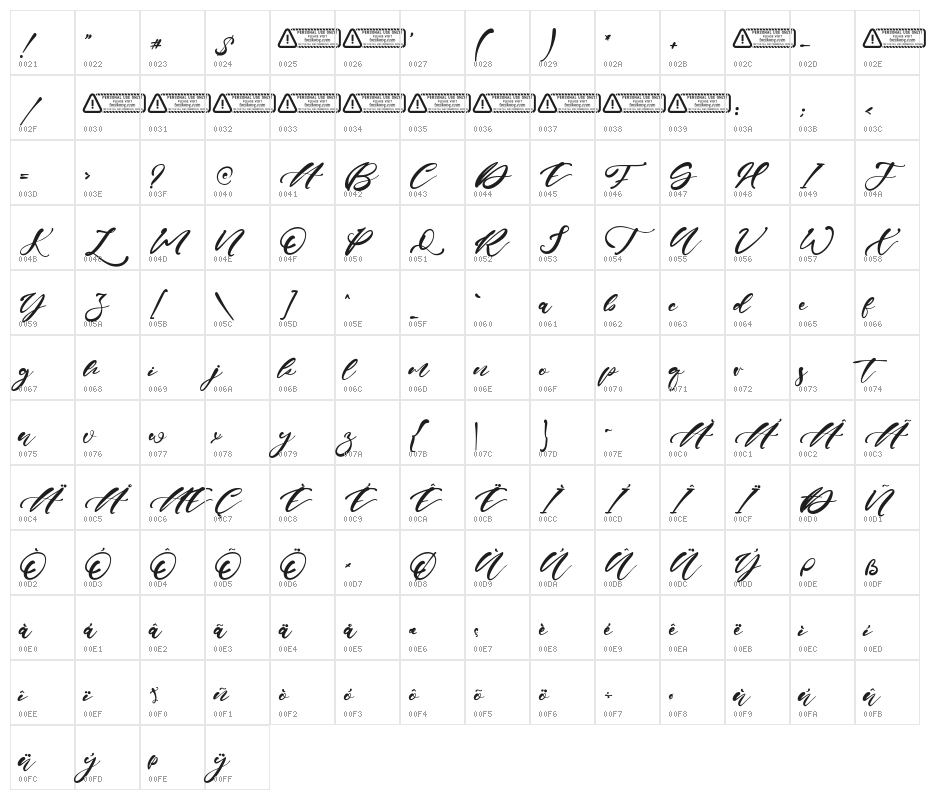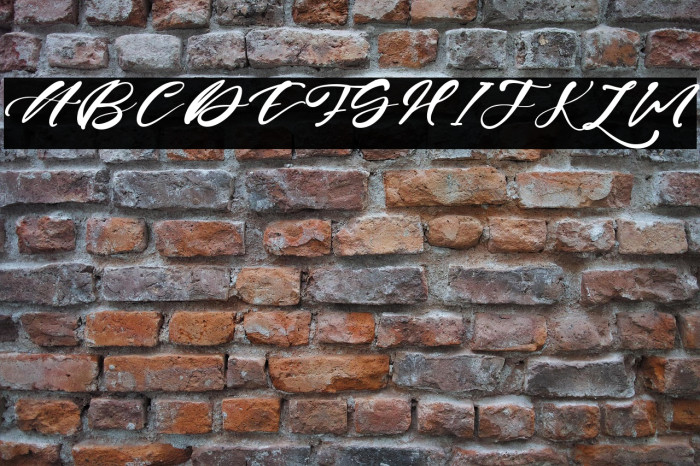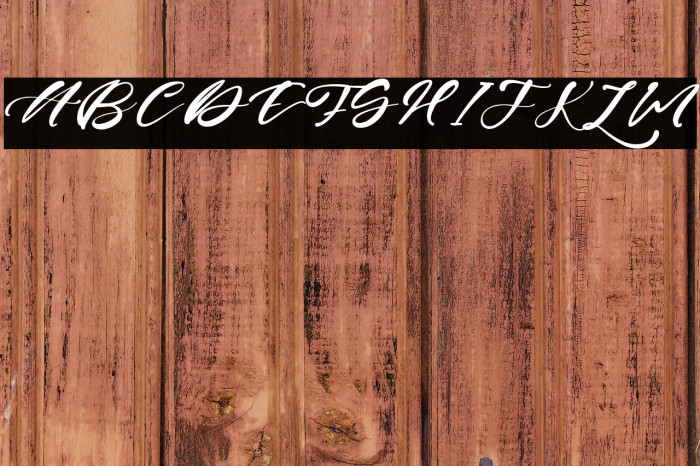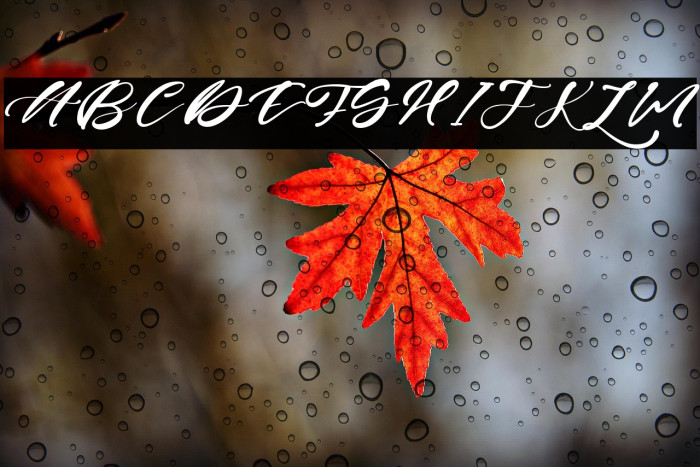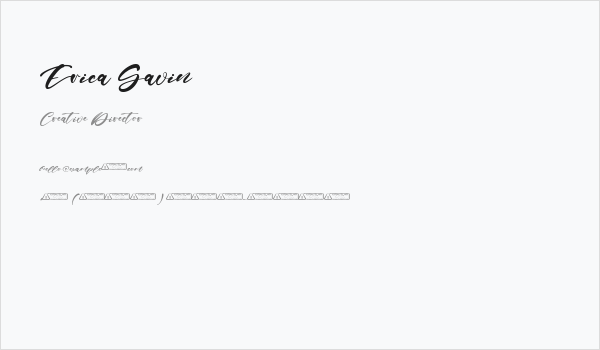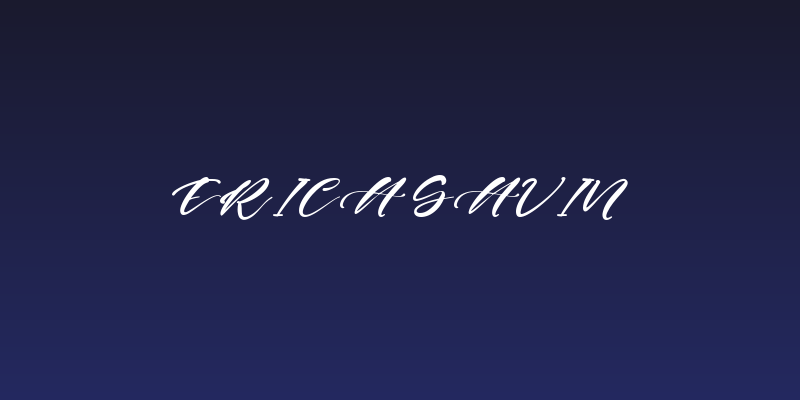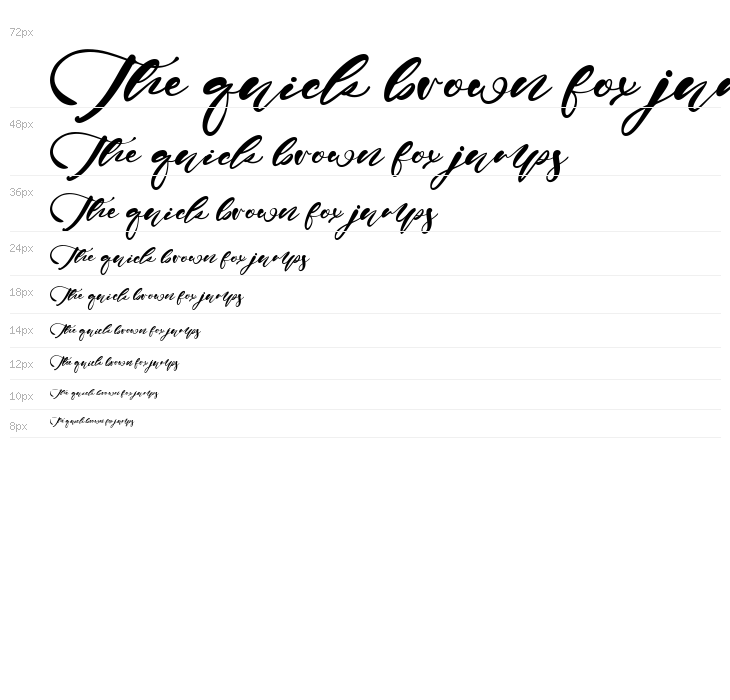
Erica Gavin Font
Erica Gavin Description
This font features an elegant and flowing script style, characterized by its smooth, connected strokes and a sense of fluidity. The uppercase letters are ornate and slightly larger, providing a graceful contrast to the more compact lowercase letters. The font maintains a consistent stroke width, giving it a balanced and harmonious appearance. The characters are slightly slanted, enhancing the cursive feel and adding a touch of sophistication. The special characters are designed to complement the overall aesthetic, making it suitable for decorative purposes.